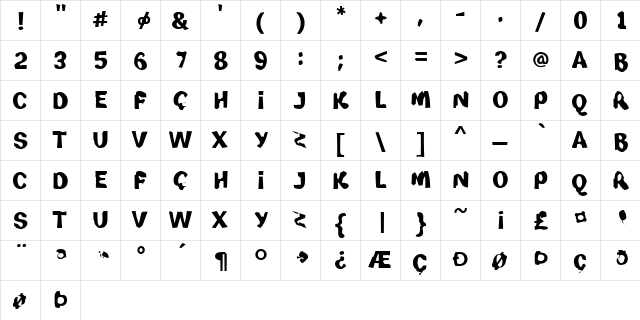
Wicked System Regular
Design Context for Wicked System Typeface
Wicked System is a composed and adaptable typeface that performs quietly and consistently across a wide range of design contexts.